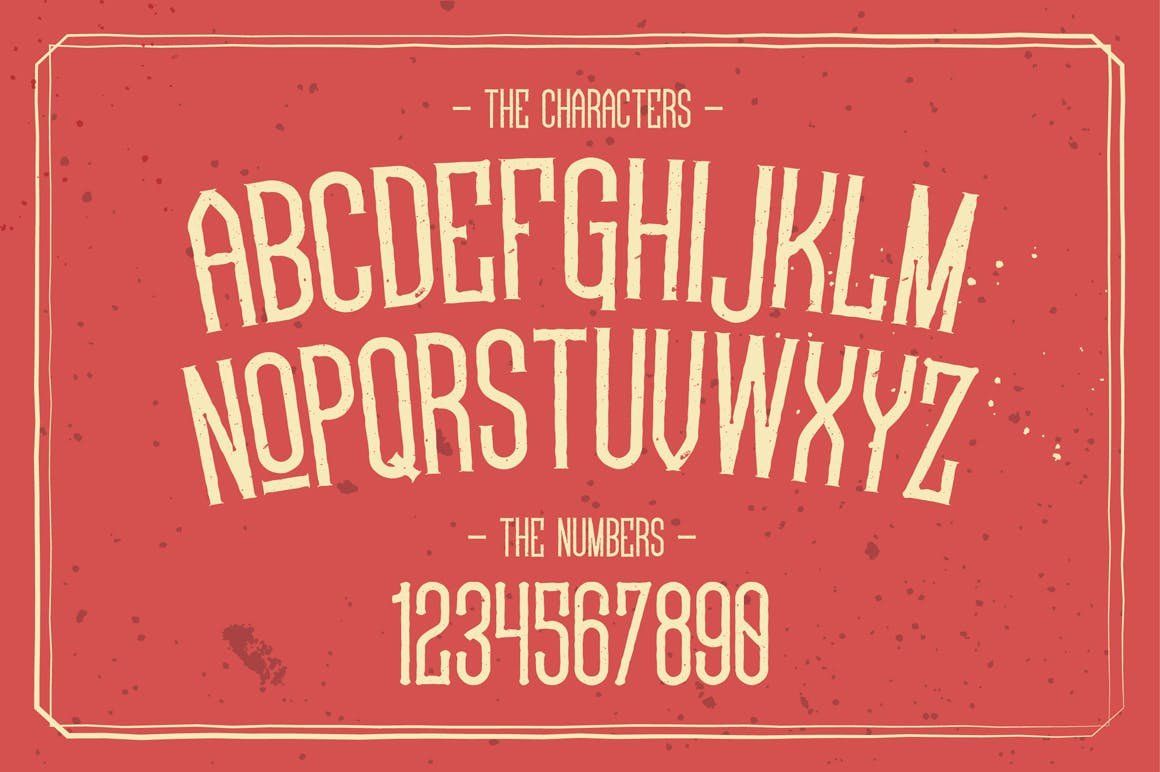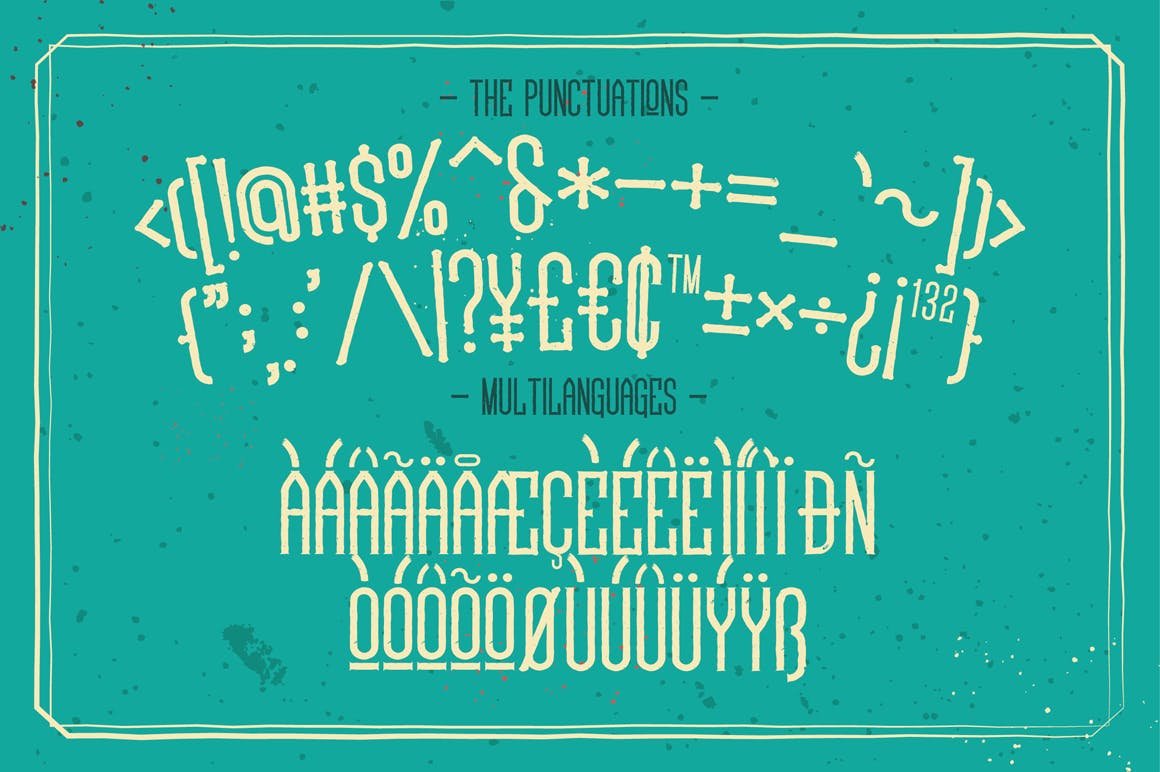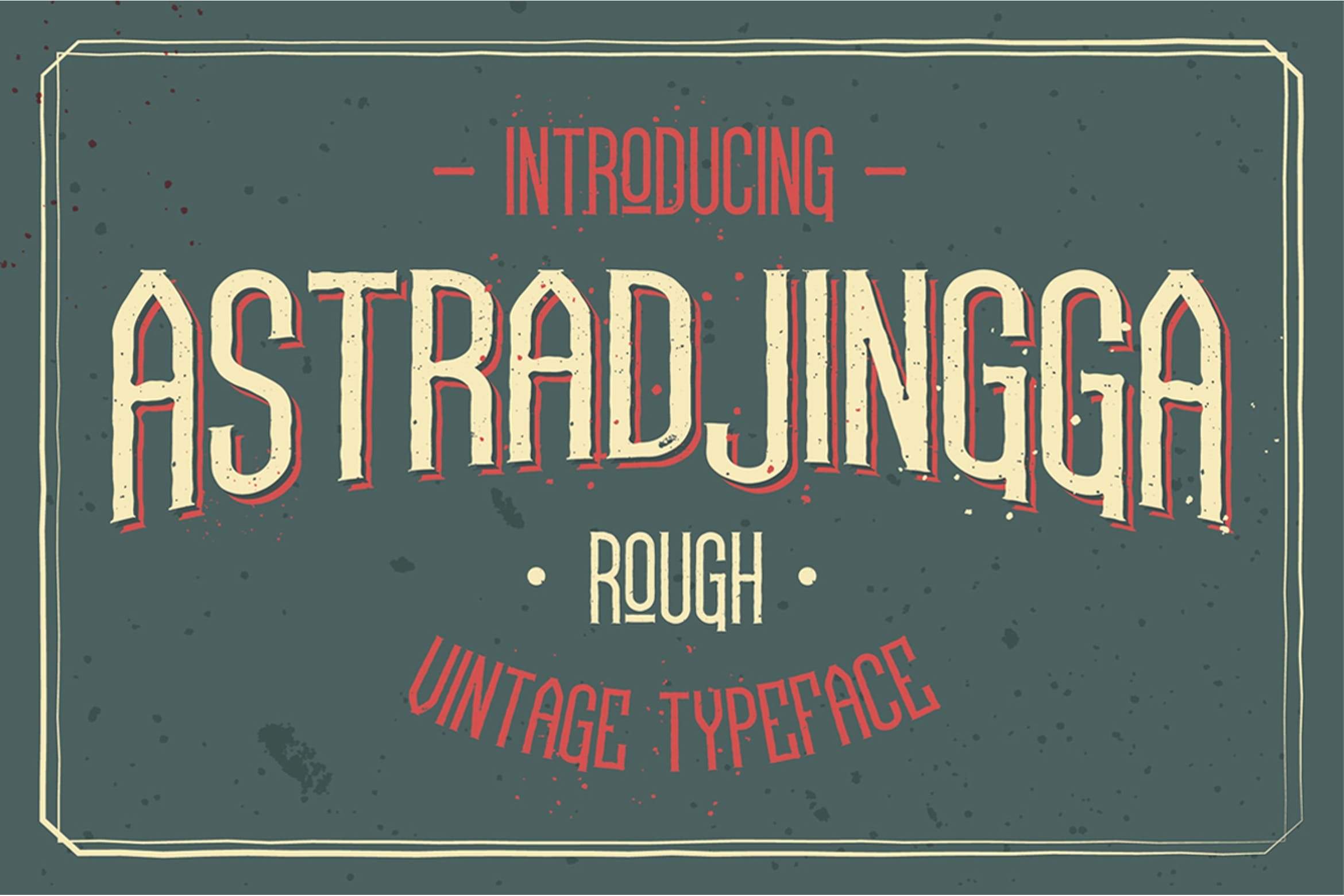
Astradjingga Rough Font
AstradjinggaRough is a vintage font thin, rough and character. Rough Astradjingga very suitable for making design themed vintage, retro and whatever themed custom culture.
| Designer Name: | Bdstrd |
| Classification: | Serif Fonts |